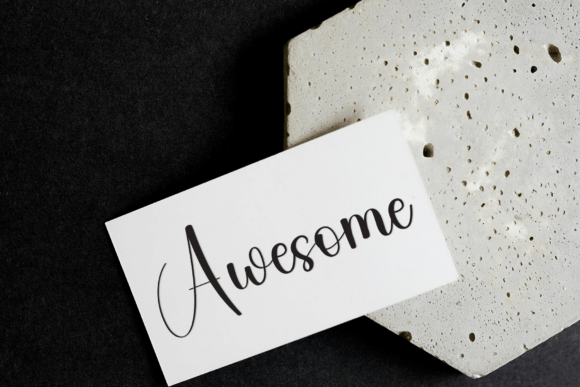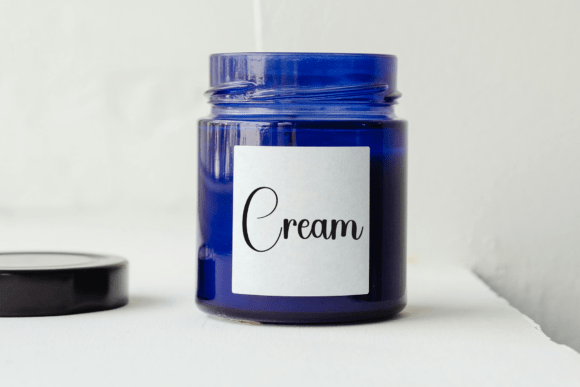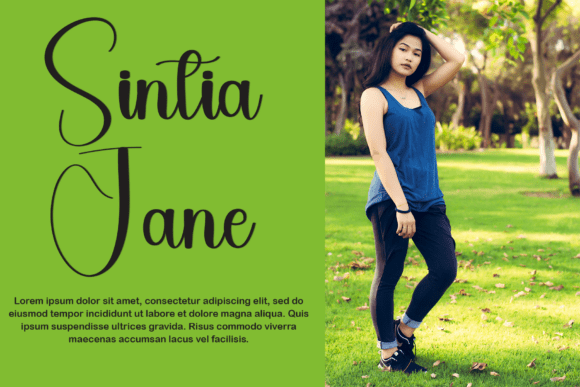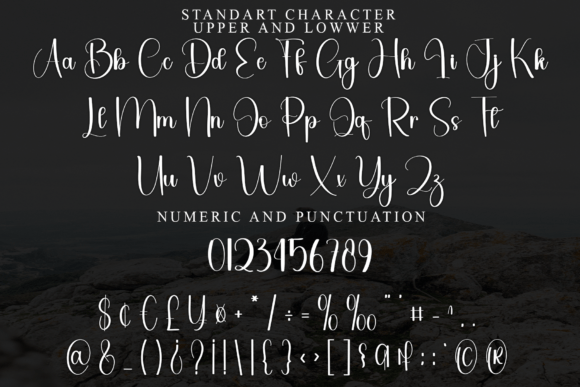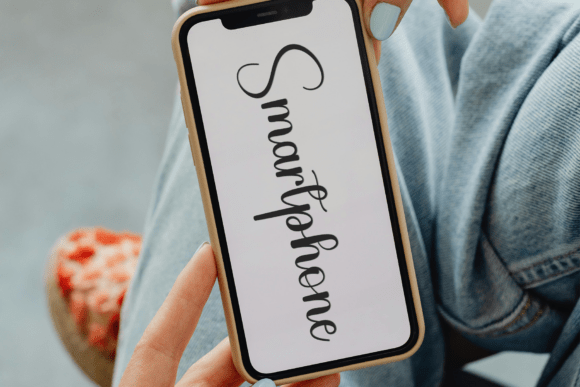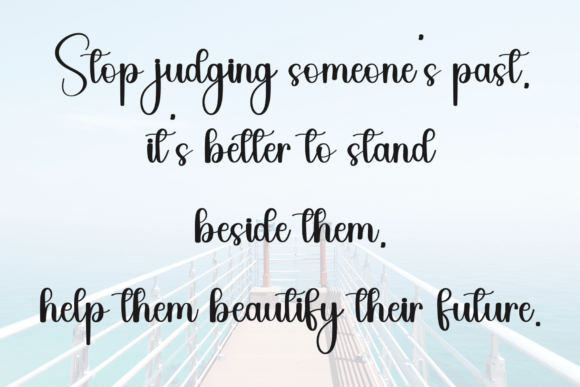
Introducing Dailight Font: The Ultimate Holiday Typeface
The holiday season is upon us, and what better way to get into the spirit than with a festive and merry typeface? Look no further than Dailight Font, a decorative and whimsical font that’s perfect for adding a touch of enchantment to your designs. In this article, we’ll dive into the world of Dailight Font and explore its features, uses, and benefits for designers and crafters.
Dailight Font is a carefully crafted typeface that embodies the magic of the holiday season. Its decorative elements and whimsical flair make it an ideal choice for creating festive and fun designs. Whether you’re working on greeting cards, gift tags, or holiday-themed projects, Dailight Font is sure to bring a cheerful and nostalgic ambiance to your words.
So, what makes Dailight Font perfect for holiday projects? For starters, its decorative elements and whimsical design evoke a sense of nostalgia and festivity. The font’s playful and cheerful vibe is sure to put a smile on anyone’s face, making it perfect for:
- Greeting cards: Create festive and fun greeting cards that will make your loved ones feel special.
- Gift tags: Add a personal touch to your gifts with beautifully designed tags that feature Dailight Font.
- Holiday-themed projects: From party invitations to festive flyers, Dailight Font is the perfect choice for any holiday-themed project.
One of the best things about Dailight Font is that it’s PUA (Private Use Area) encoded. This means that you can access all of the amazing glyphs and ligatures with ease. No more complicated font editing or searching for special characters – with Dailight Font, you can simply type away and enjoy the beautiful, decorative elements that the font has to offer.
For those who may not be familiar, PUA encoding is a way of mapping font characters to a specific range of Unicode values. This allows designers and users to access special characters and glyphs without having to use complicated font editing software. With PUA encoding, you can:
- Easily access decorative elements and ligatures
- Use the font with ease, without requiring complicated font editing
- Enjoy a seamless design experience
So, what are the benefits of using Dailight Font for designers and crafters? Here are just a few:
- Easy to use: With PUA encoding, you can access all of the font’s features with ease.
- Versatile: Dailight Font is perfect for a wide range of holiday-themed projects, from greeting cards to gift tags.
- Festive and fun: The font’s whimsical design and decorative elements add a touch of festivity to any project.
- Nostalgic: Dailight Font’s nostalgic vibe is sure to evoke memories of holidays past.